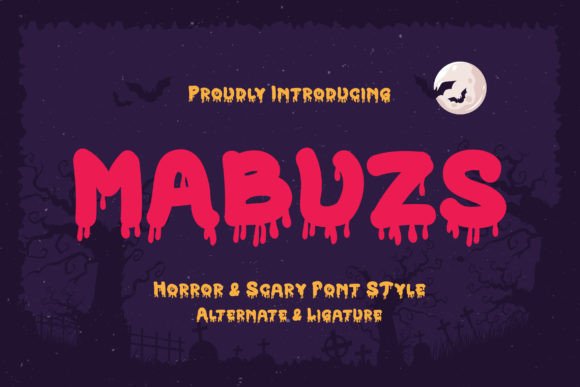
Journey into the domain of darkness, where shadows dance and fear takes form. Introducing the “Mabuzs Font,� a display font that will captivate your senses like no other. Its twisted letterforms, reminiscent of a haunting tale whispered in the dead of night, will send shivers down your spine and leave you craving for more.
Be the architect of your own horror story, where each letter becomes a harbinger of doom. Craft movie titles that scream with terror, design spine-chilling posters that promise a night of restless slumber, or create unsettling flyers for events that will leave attendees trembling in anticipation. The Mabuzs Font is your weapon of choice, a tool that will sow the seeds of fear and captivate your audience.
With its chillingly stunning appearance, the Mabuzs Font will make your words leap off the page, commanding attention and refusing to be ignored. Immerse yourself in the realm of the supernatural, where each character dances like a phantom, beckoning you to explore the depths of your imagination. This font is not just a collection of letters; it's a gateway to the unknown, an invitation to unleash your darkest desires.
Dare to defy the ordinary and embrace the macabre. Let the Mabuzs Font be your muse, your companion on a journey through the shadows. It's not just a font; it's a portal to a world where nightmares become reality. Embrace its twisted beauty and let it guide you towards a creative awakening.
Don't let fear hold you back. Unleash your imagination and let the Mabuzs Font lead you on an adventure that will leave your audience breathless. It's time to embrace the darkness and let your creativity thrive. The Mabuzs Font awaits you, whispering promises of untold horrors and limitless possibilities.